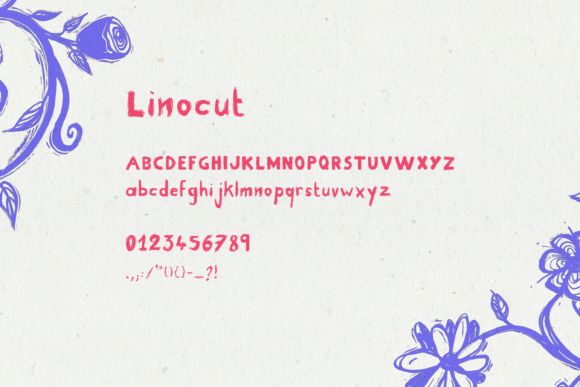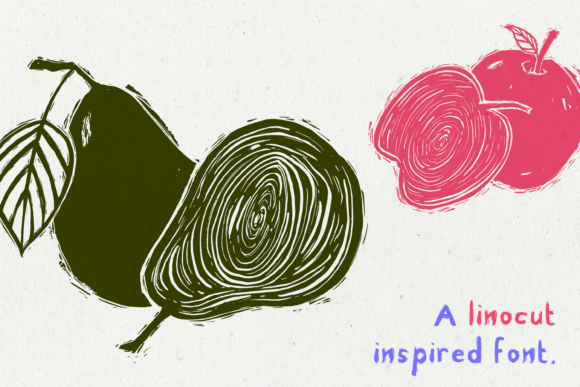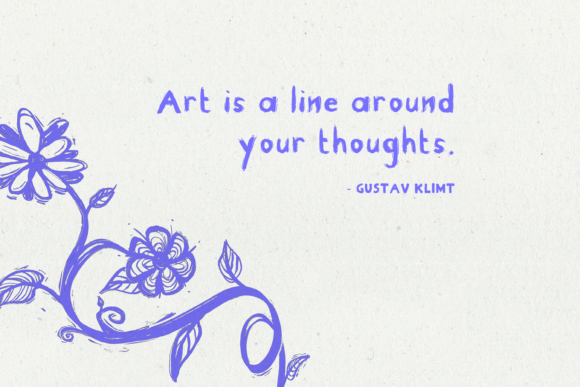
About Linocut Font
Linocut is a cool, brushed, and friendly handwritten font that brings a touch of authenticity and personality to your designs. With its natural and organic strokes, this font is the perfect choice for chalkboard quotes and teaching materials. It adds a personal and realistic feel, enhancing the overall aesthetic of your designs.
The cool and brushed nature of Linocut gives it a contemporary and edgy look. The font’s textured and imperfect strokes bring a sense of artistic expression and creativity. It adds a unique and handcrafted element to your designs, making them visually engaging and visually appealing.
Linocut’s friendly and approachable style makes it suitable for a wide range of applications, particularly chalkboard quotes and teaching materials. The font’s handwritten appearance creates an intimate and personal connection with the viewer. It evokes a sense of warmth and authenticity, making your designs relatable and relatable.
When used in teaching materials, Linocut adds a touch of playfulness and creativity. Its friendly and approachable nature makes learning more enjoyable and engaging. The font brings a sense of personality and character to educational resources, making them visually appealing and appealing.
The authentic look and feel of Linocut create a sense of realism in your designs. It mimics the texture and imperfections of traditional hand-drawn artwork, adding a touch of nostalgia and charm. This authenticity adds depth and richness to your designs, making them feel genuine and relatable.
Incorporating Linocut into your designs allows you to add a personal and realistic feel to your creations. The font’s cool, brushed, and friendly style adds a contemporary and artistic touch. It brings a sense of authenticity and creativity that enhances the visual appeal and engagement of your designs.
In summary, Linocut is a cool, brushed, and friendly handwritten font that adds authenticity and personality to your designs. Its natural and organic strokes create a contemporary and artistic look. Whether used for chalkboard quotes or teaching materials, this font brings a personal and realistic feel that captivates viewers. Embrace the authenticity and creativity of Linocut, and watch as it enhances the overall aesthetic of your designs, creating visually engaging and relatable experiences.